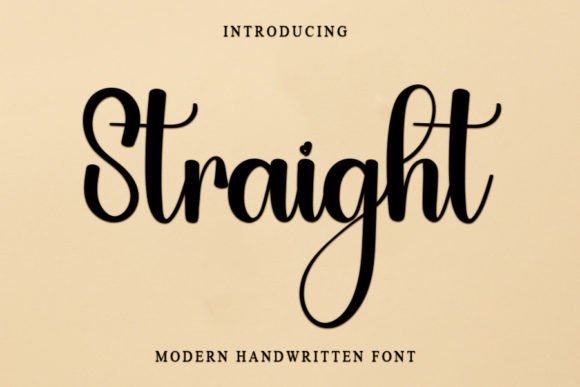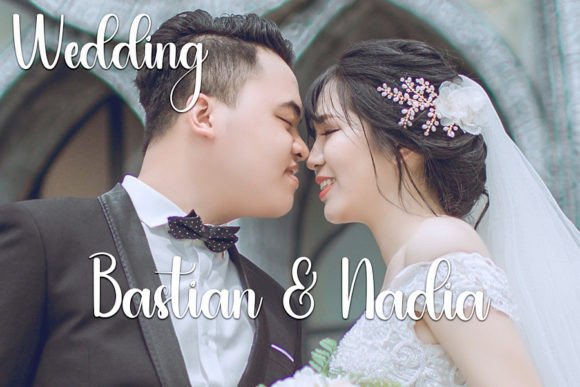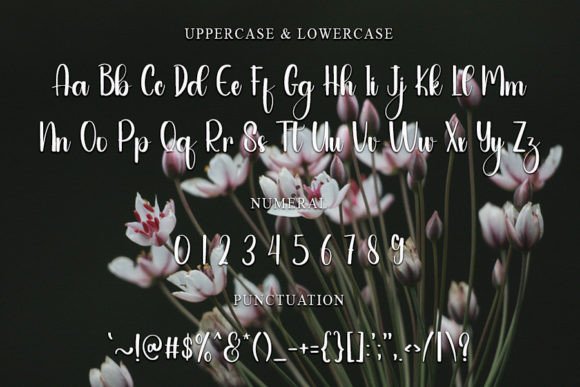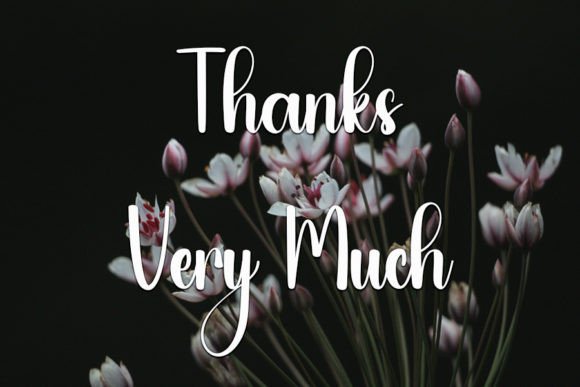
Straight Font
About Straight Font
**Straight: A Neat and Beautiful Handwritten Font for Timeless Designs**
Straight is a font that captures the essence of neatness and beauty, making it a perfect choice for a wide range of design projects. Whether you’re working on logos, branding, invitations, stationery, social media posts, or any creative endeavor, Straight features a distinct and timeless style that adds an elegant touch to your designs.
The charm of Straight lies in its carefully crafted handwritten characters, meticulously designed to convey a sense of clarity and elegance. Each letter possesses a unique touch that enhances your designs with a clean and refined aesthetic.
This font’s versatility ensures it can adapt to various design contexts. You can use it to create polished logos and branding materials, infuse elegance into your invitations and stationery, craft eye-catching social media posts, design with a timeless style that resonates with your audience, or employ it in any project where you want to convey a sense of neatness and beauty.
In summary, Straight is more than just a font; it’s a source of elegance and timeless beauty that enhances your design projects. Its handwritten characters make it the perfect choice for creating versatile and refined typography. With Straight, your creative projects will shine with a distinct and polished presence. Choose Straight, and let your designs captivate with their beautiful, neat, and timeless aesthetic.